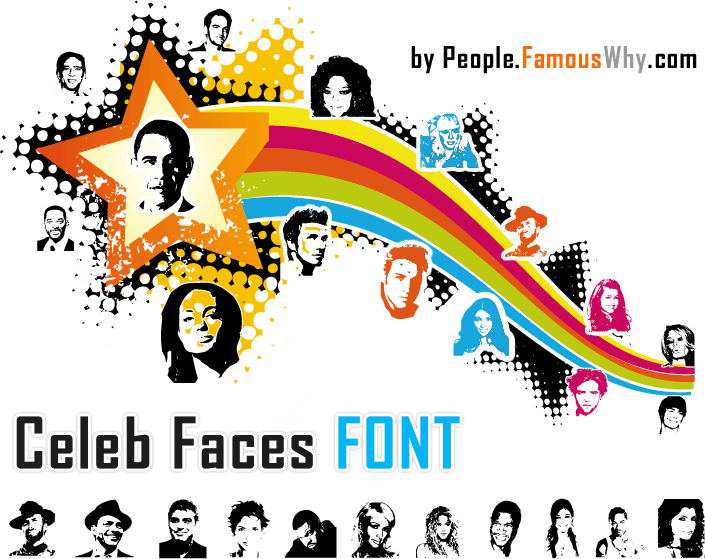
Celeb Faces Font is produced by http://People.FamousWhy.com and it is dedicated to some of the most famous people in the world (each letter corresponds to a celebrity). You are free to use this font and to distribute it freely as long as it comes with the full .zip file containing the license.txt file. You may use this font on celebrities websites, blogs, forums or any other celebrity related material such as banners, icons, wallpapers, backgrounds, buttons and any other graphic element but don't forget to mention about people.famouswhy.com when you use it. Here are some celebrities you may find in this font : Angelina Jolie, Barrack Obama, Tom Cruise, X-Zibit, Kim Kardashian, Will Smith, George Clooney, Oprah Winfrey, Halle Bery, Paris Hilton, Frank Sinatra, Usher, Quentin Tarantino and more... The official page for this font is : http://download.famouswhy.com/celeb_faces/ You may use the following page for any question about this font: http://www.famouswhy.com/contact/ Copyright © 2010, All rights reserved. http://www.FamousWhy.com - The Encyclopedia of Famous Things |